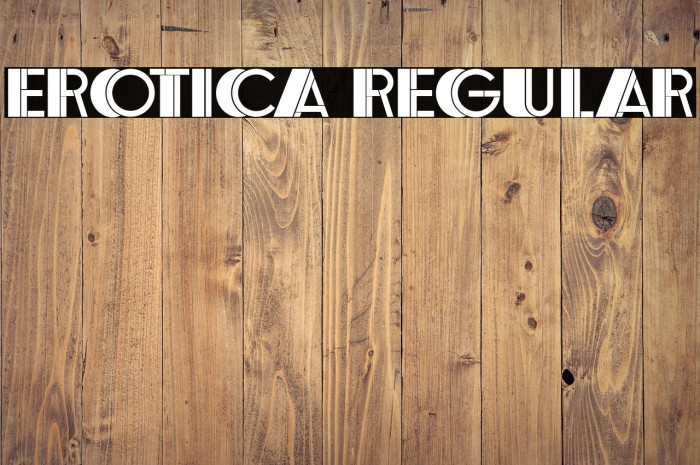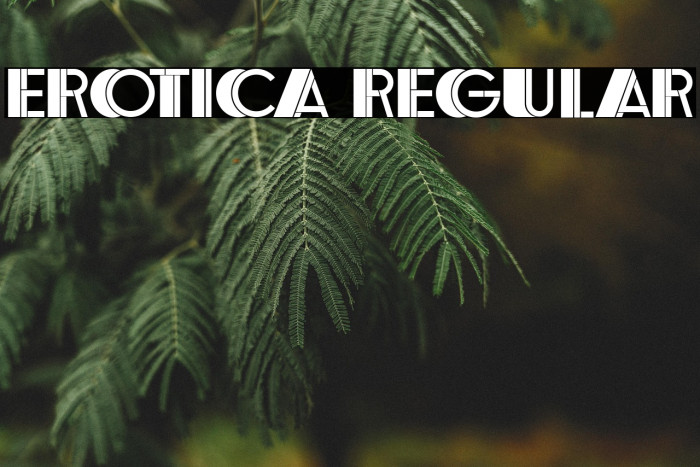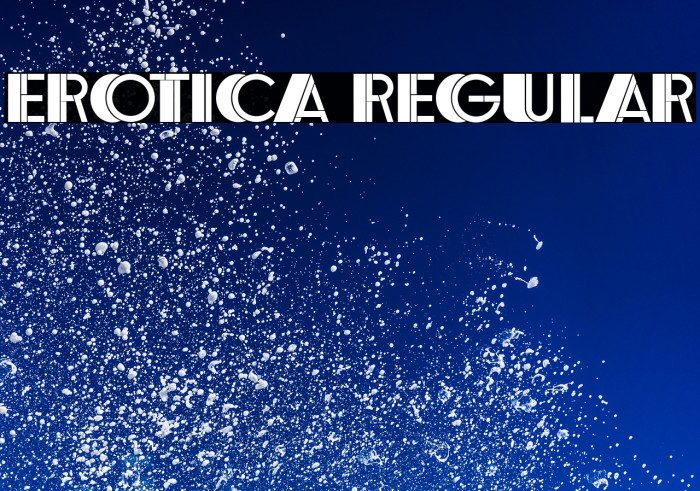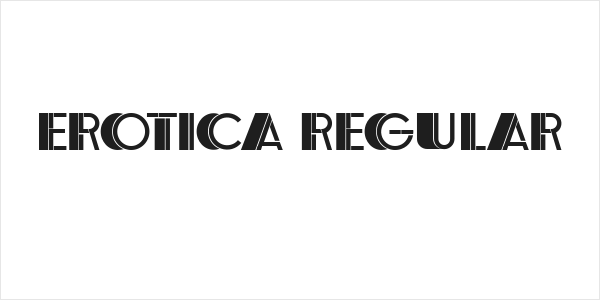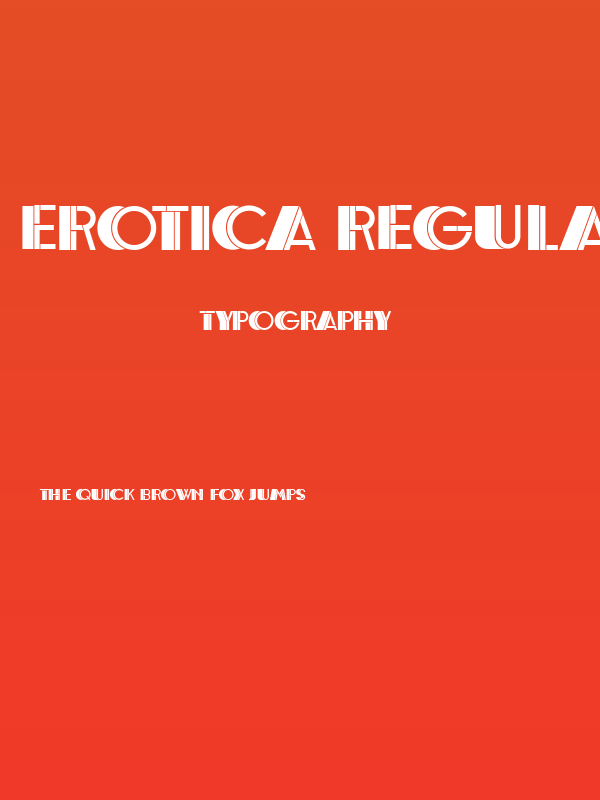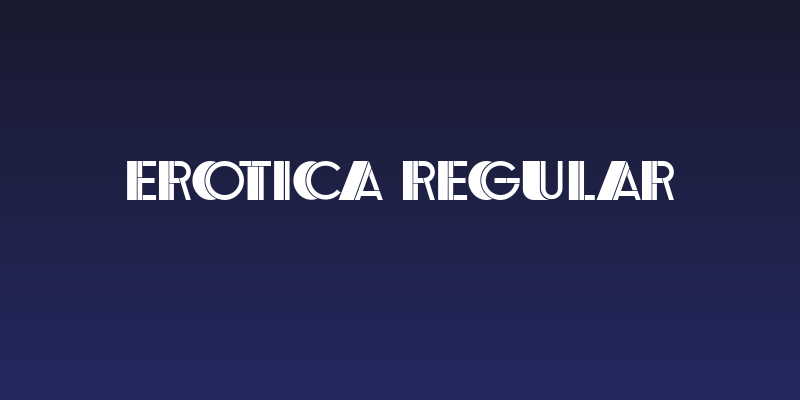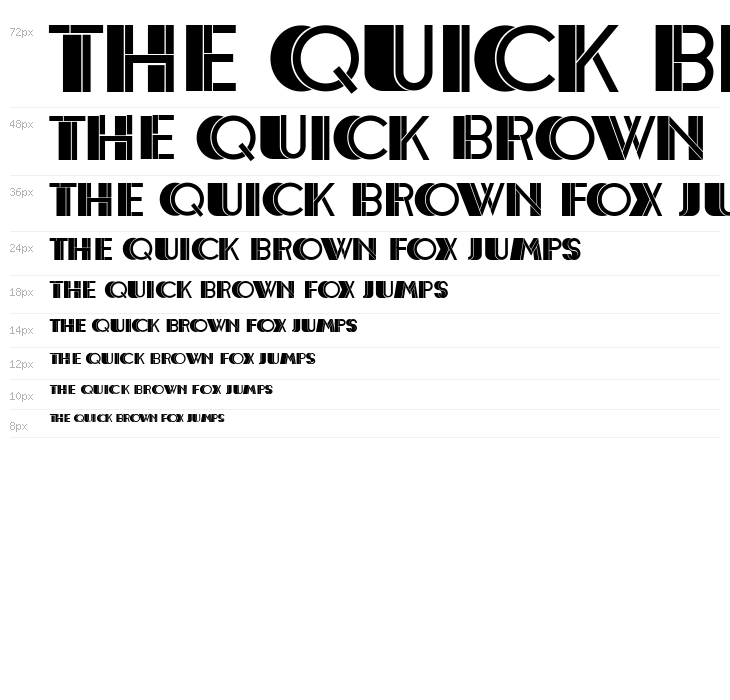
Erotica Regular Font
Erotica Regular Description
This font features a bold and striking design with a modern, geometric aesthetic. The characters are constructed with sharp angles and clean lines, creating a sense of movement and energy. The use of negative space within the letters adds a unique visual interest, making it stand out in any design. The uppercase letters are particularly prominent, with a strong presence that commands attention. This font is well-suited for projects that require a contemporary and dynamic look.